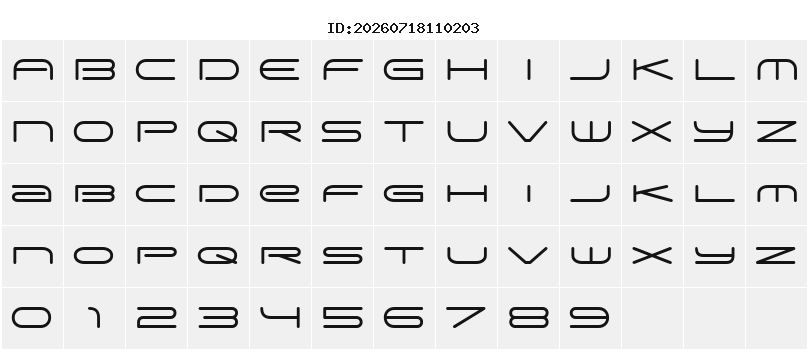
About Cavalero BT.ttf
Cavalero BT.ttf is a modern, elegant sans-serif font designed for ultimate readability and visual harmony. Perfect for branding, headlines, web design, and print materials.